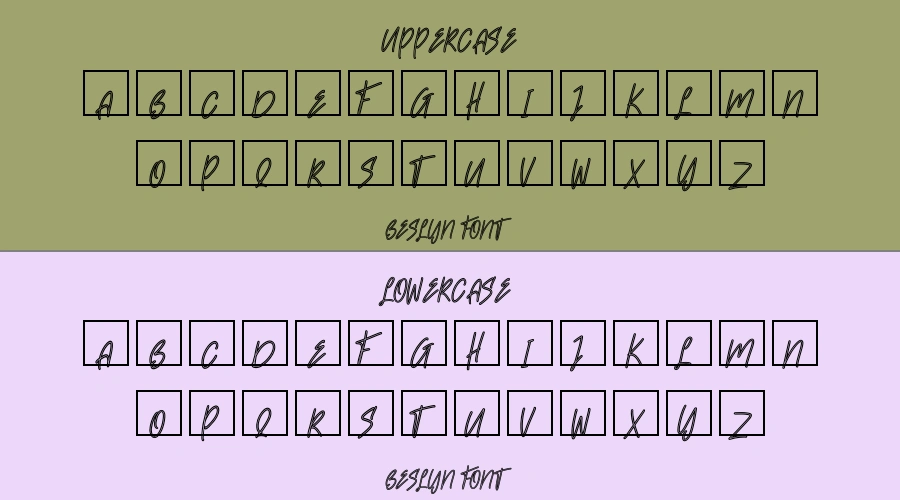
About Beslyn Font
Beslyn Font embodies typographic excellence through its masterful combination of flowing forms and craftsmanship. Created for medical texts, this typeface delivers exceptional distinctiveness and creative excellence across all applications. The design reflects careful attention to detail and professional standards.
Advanced capabilities include distinctive hairline details and versatile contextual alternates, giving designers creative control. When used in hero imagery, Beslyn Font exhibits remarkable readability. The harmonious balance between ascender height and market positioning sets this typeface apart.